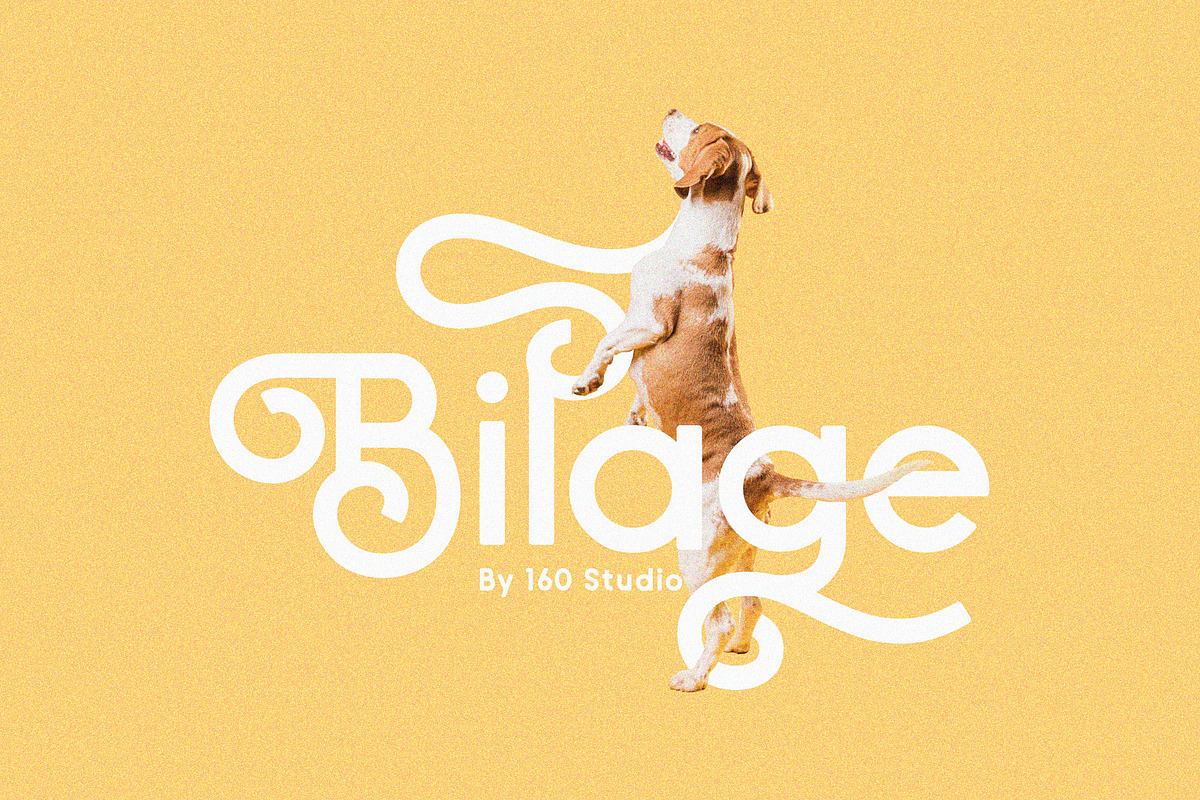
Bilage Font Free Download is a sleek and versatile typeface designed to bring modern elegance and visual impact to your creative projects. Please note, you are required to purchase this font for commercial use. It is available for free download for testing and personal projects only.
Featuring clean lines, stylish curves, and a contemporary feel, Bilage is perfect for branding, editorial layouts, logo design, social media graphics, and upscale packaging. Its minimalist yet distinctive design makes it ideal for both bold headlines and refined body text.